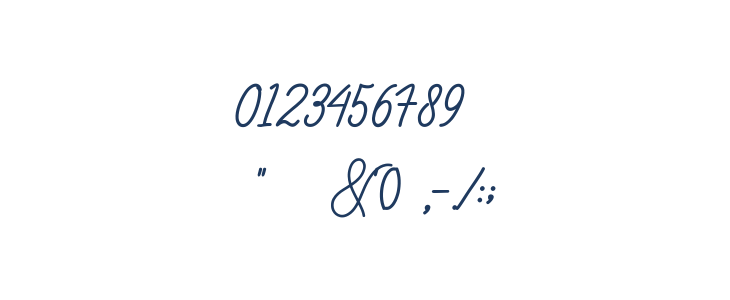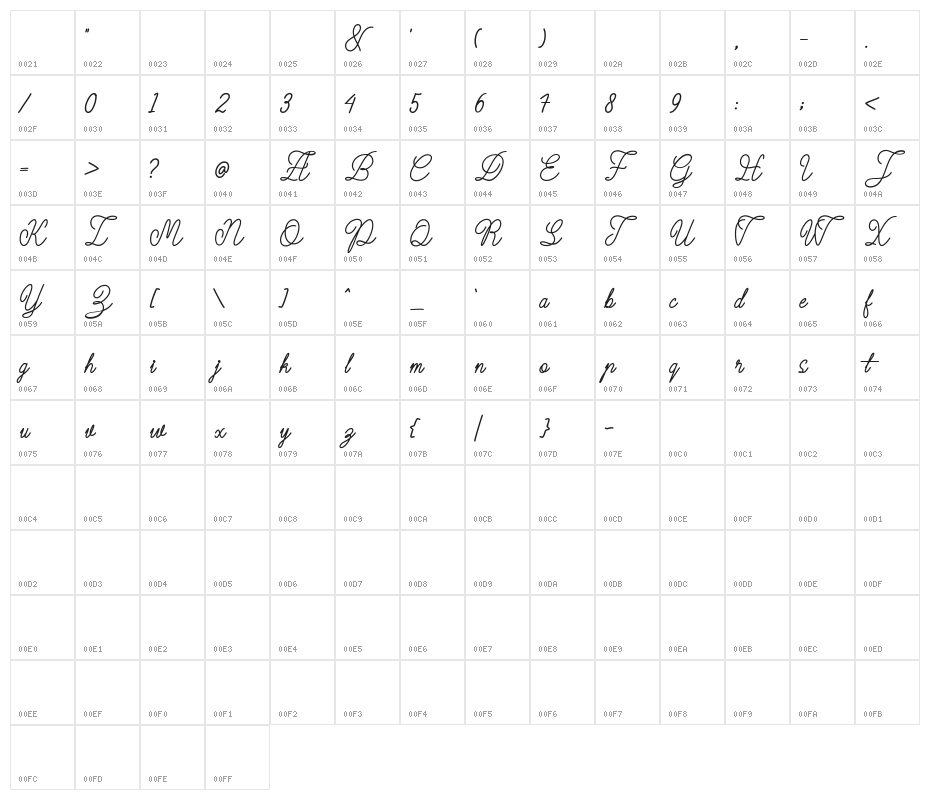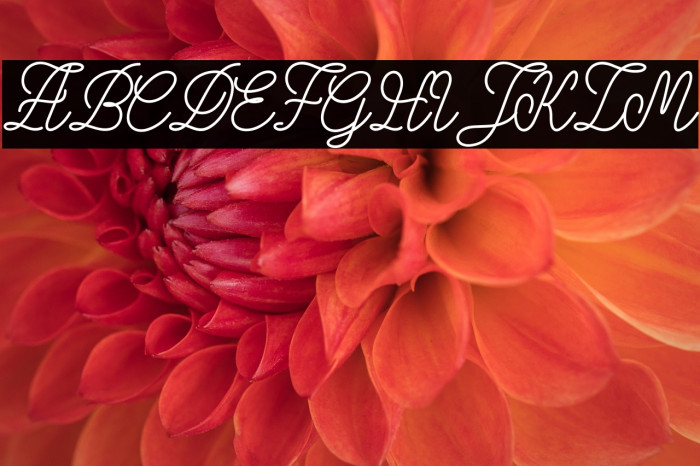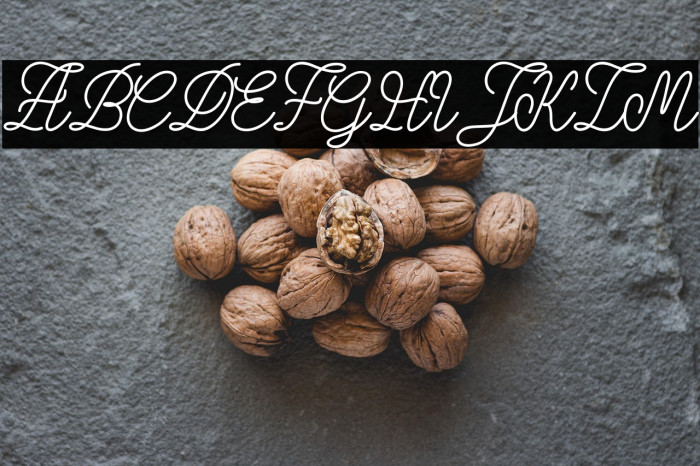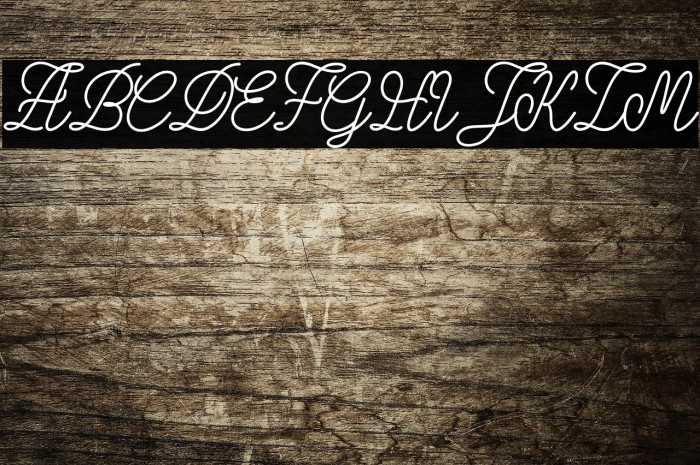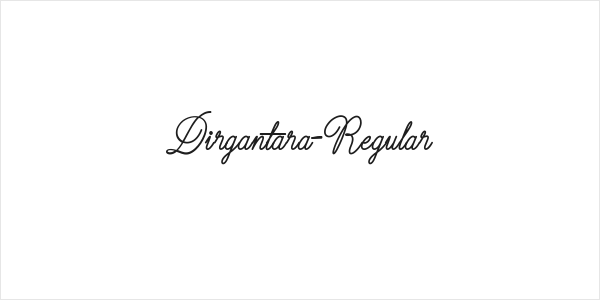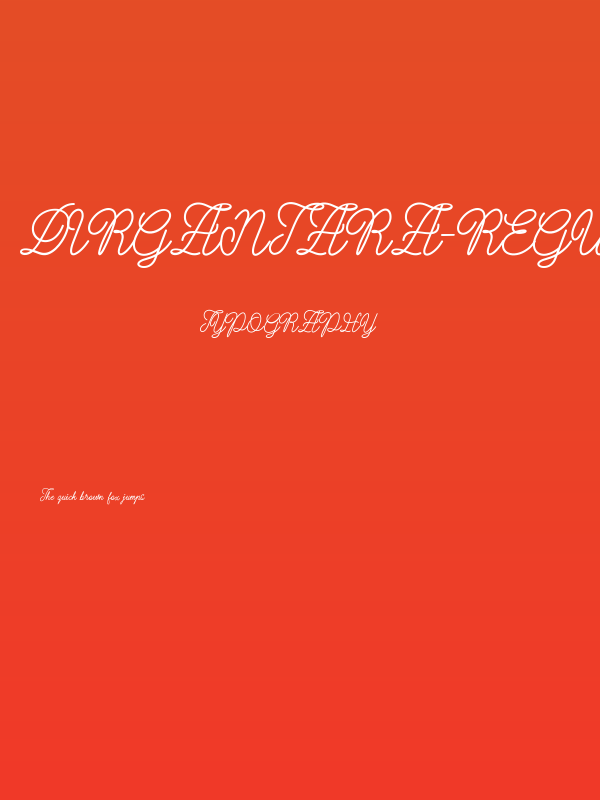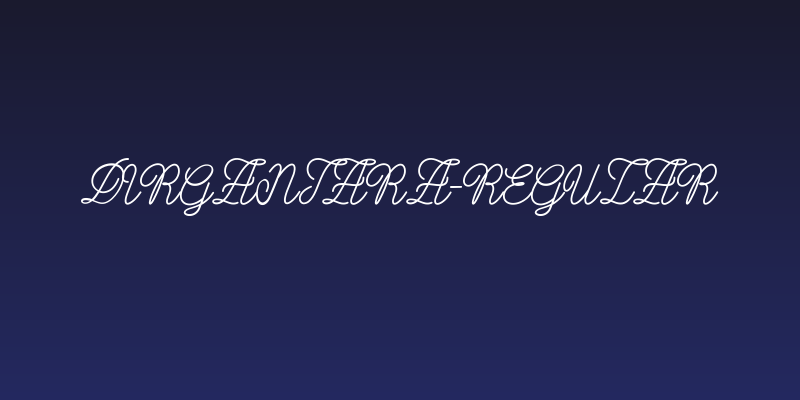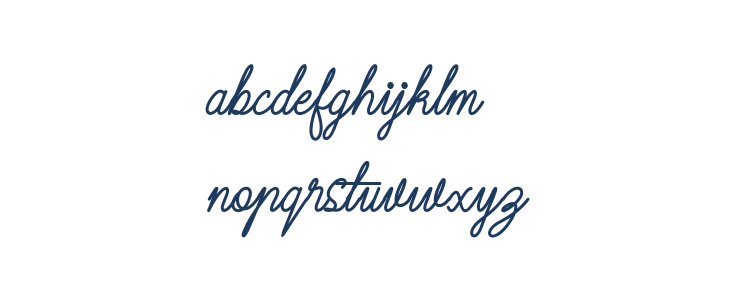
Dirgantara-Regular Font
Dirgantara-Regular Description
This font features an elegant and flowing script style, characterized by its smooth, connected strokes that mimic the fluidity of handwriting. The uppercase letters are ornate with loops and flourishes, while the lowercase letters maintain a consistent flow, enhancing readability. The numerals and special characters are designed to complement the overall script style, maintaining the same fluidity and elegance. This font exudes a sense of sophistication and grace, making it ideal for formal and decorative applications.
Overall StyleElegant, Decorative
Use CaseHeadlines, Invitations, Branding
Proposed ProjectsIdeal for wedding invitations, greeting cards, elegant branding, and decorative signage.